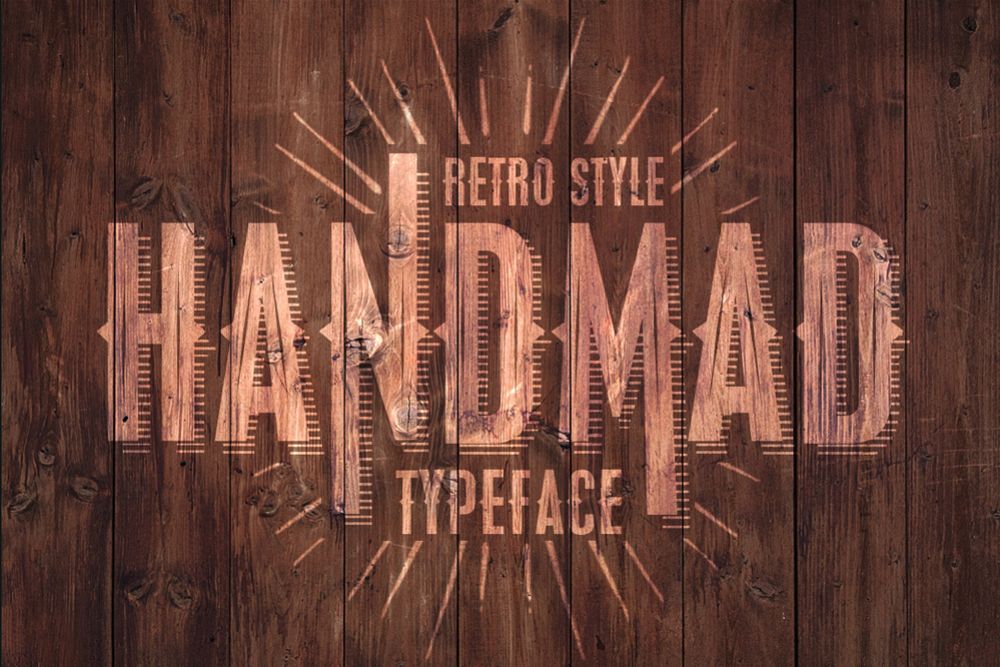
Handmad
Handmad 3D Shine.
Handmad 3D.
Handmad Plain.
Handmad Shine.
Handmad is a vintage style typeface. Suits best for t-shirt designs, label & Branding designs, poster designs, etc.